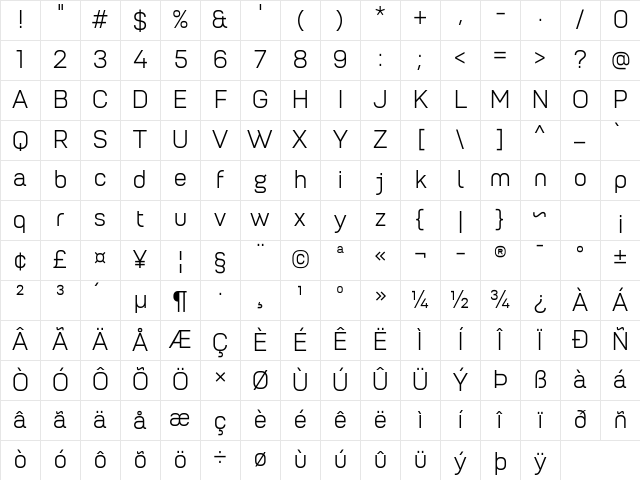
Petrov Sans Book Regular
Foundry: Fontfabric LLC
Designer: Asen Petrov, Svet Simov, Stefan Yatanski
Complete Petrov Sans Book Regular glyph index. Displaying only characters natively supported by Petrov Sans Book Regular font.
Design Context for Petrov Sans Book
Petrov Sans Book is a composed and adaptable typeface that performs quietly and consistently across a wide range of design contexts.